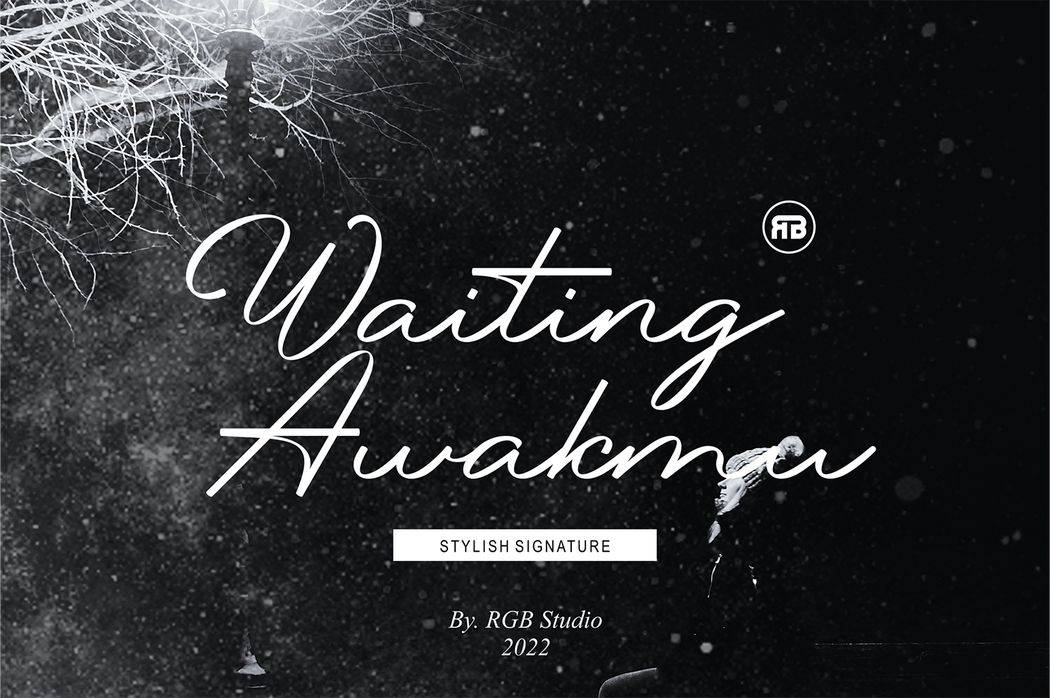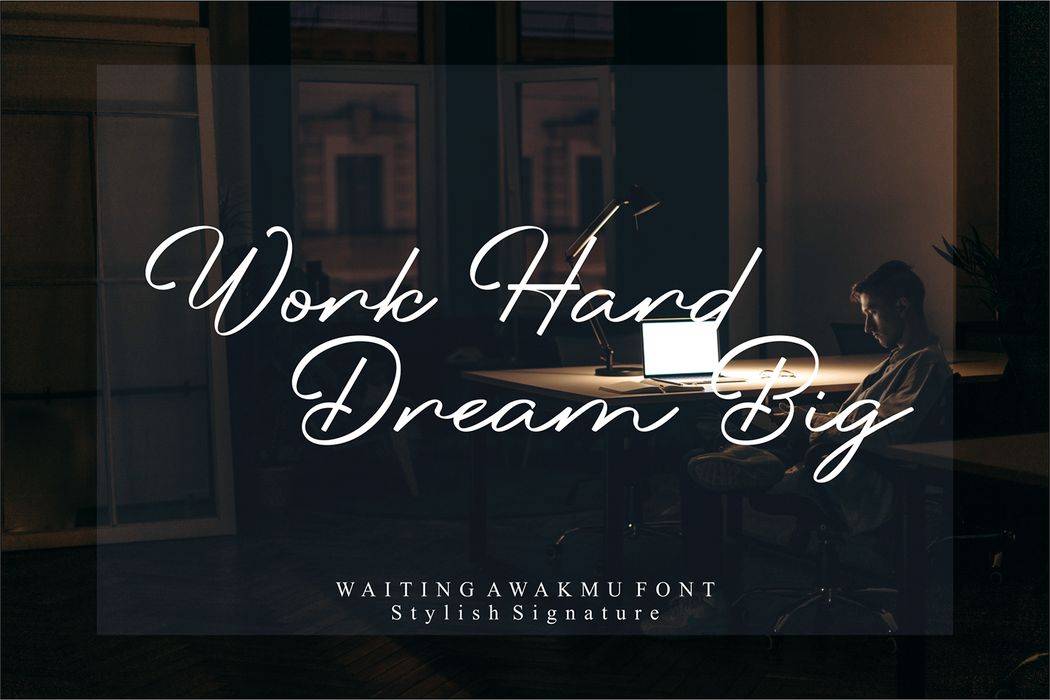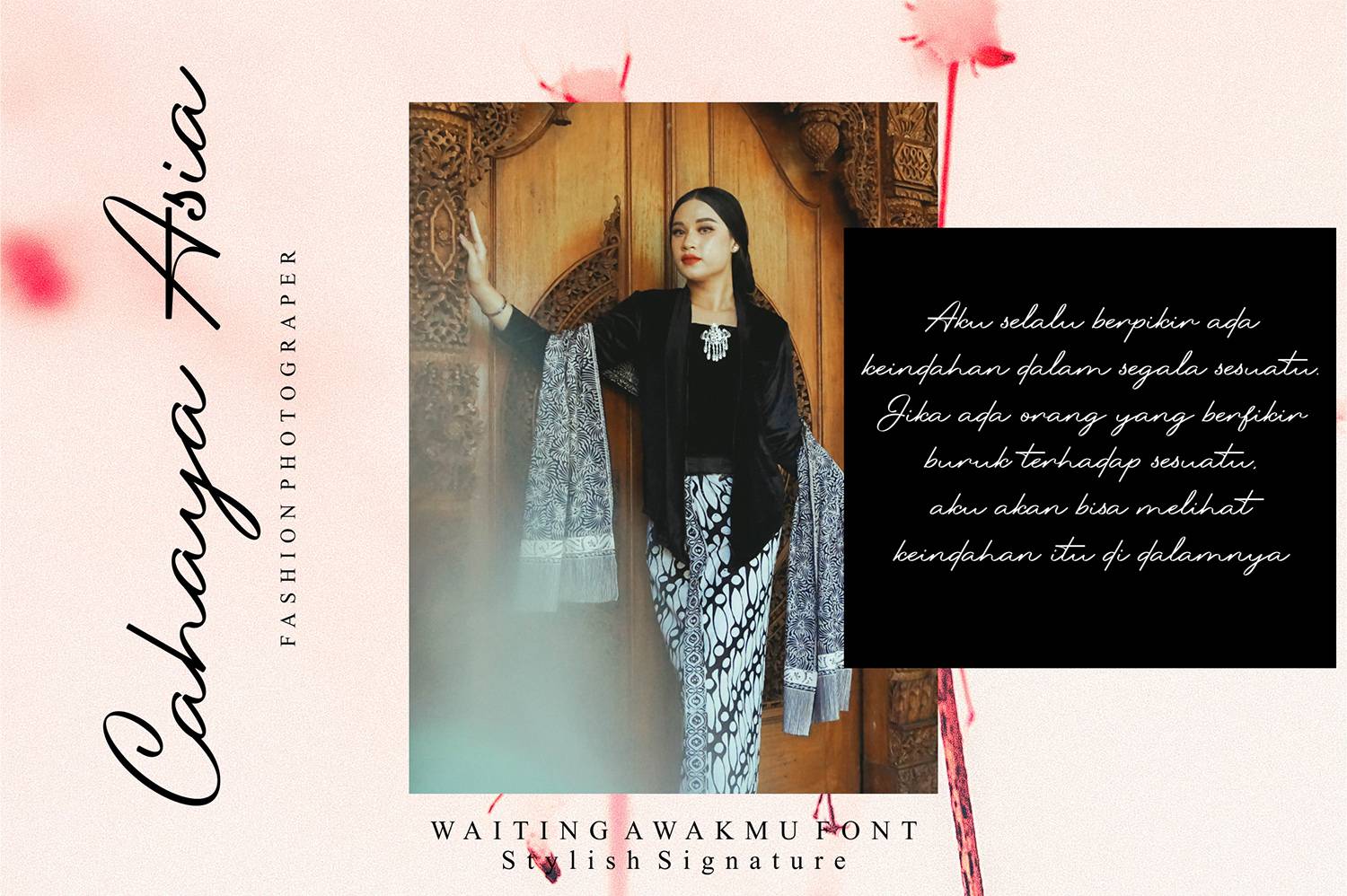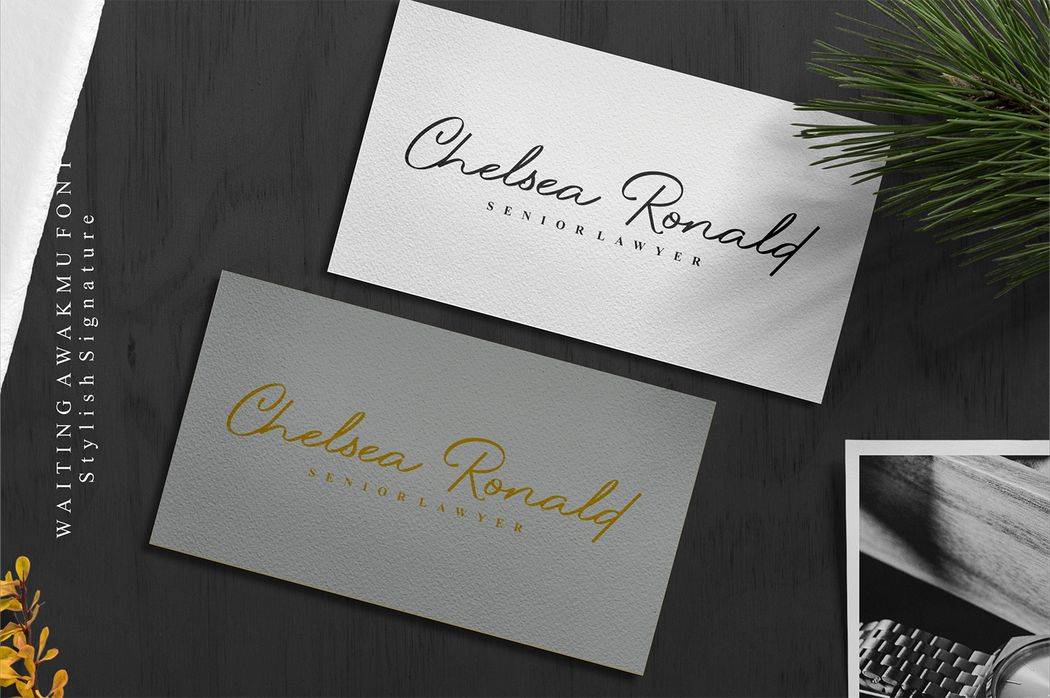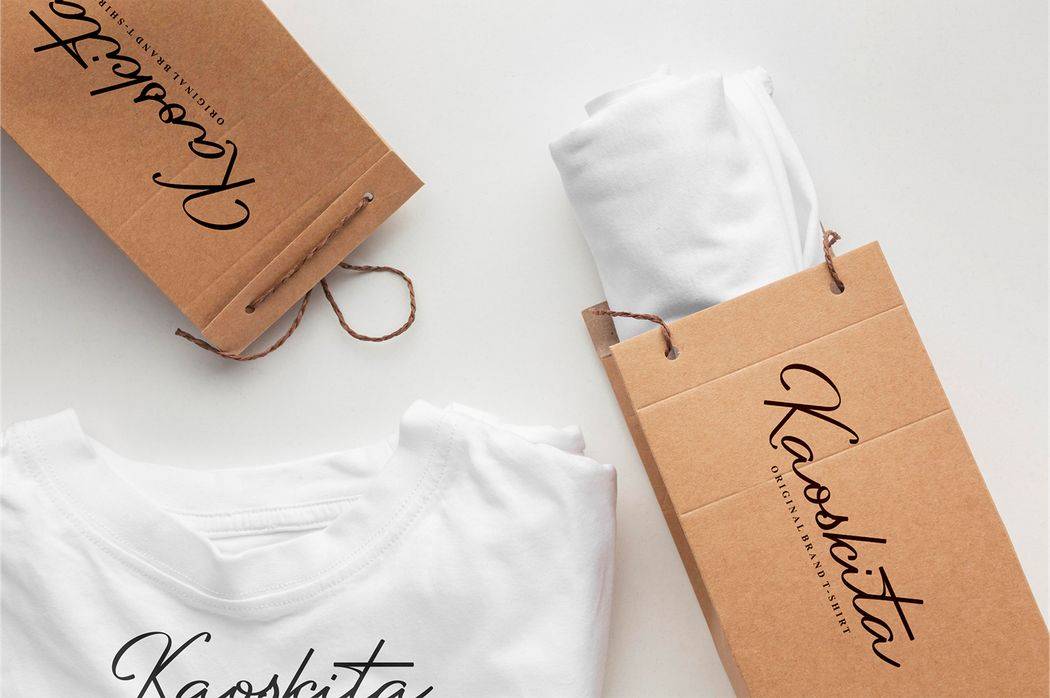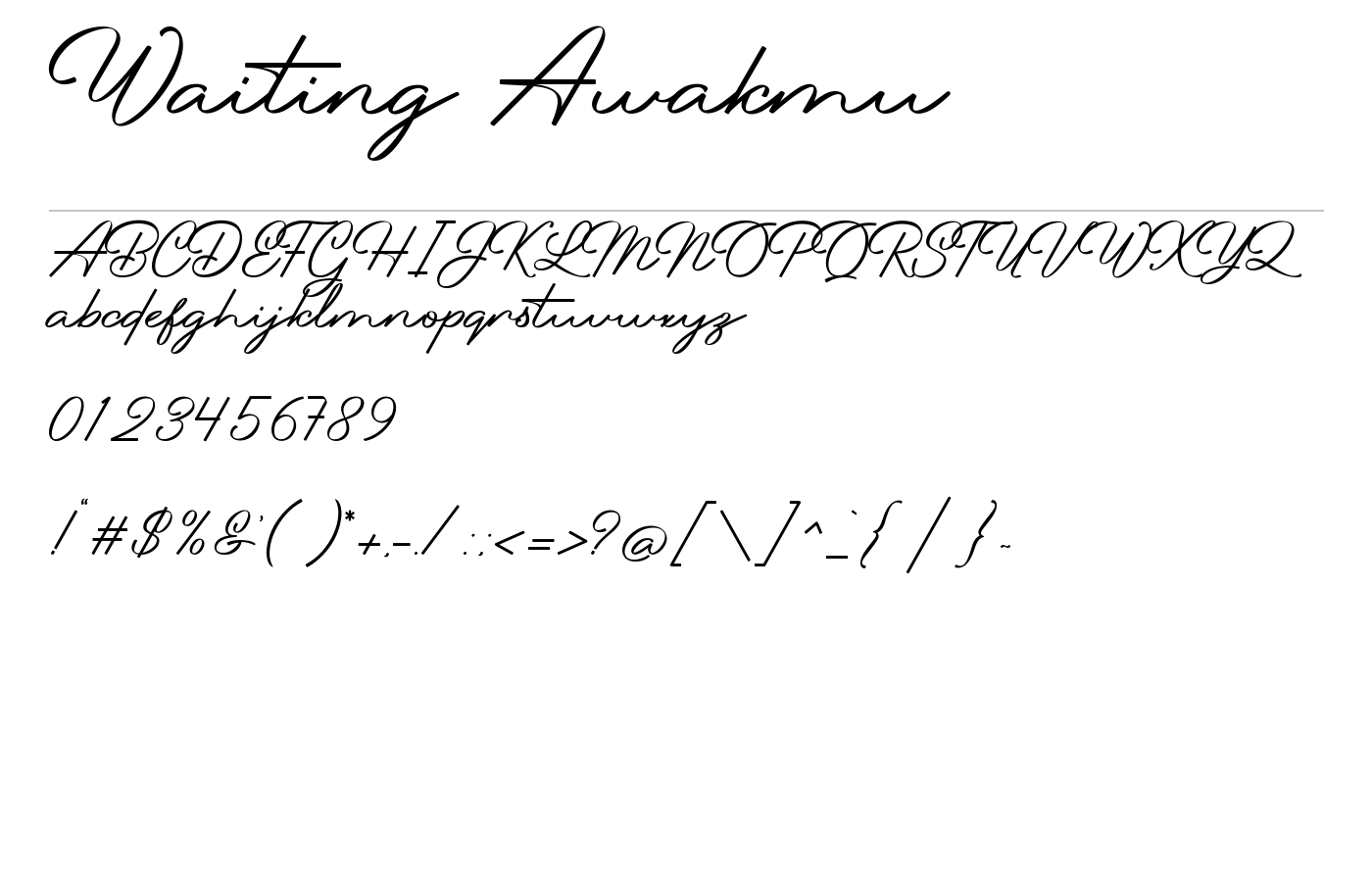
Waiting Awakmu is an elegant script font featuring slender, flowing strokes that convey a graceful and handwritten feel. Its light weight and refined curves make it perfect for invitations, branding, and creative projects where a touch of sophistication and a personal touch are desired. This font works beautifully in settings where an airy, artistic style enhances the overall design.
Waiting Awakmu Font
About Waiting Awakmu Font
| Font family | Waiting Awakmu Font |
| Designer | MOH. MA'IN |